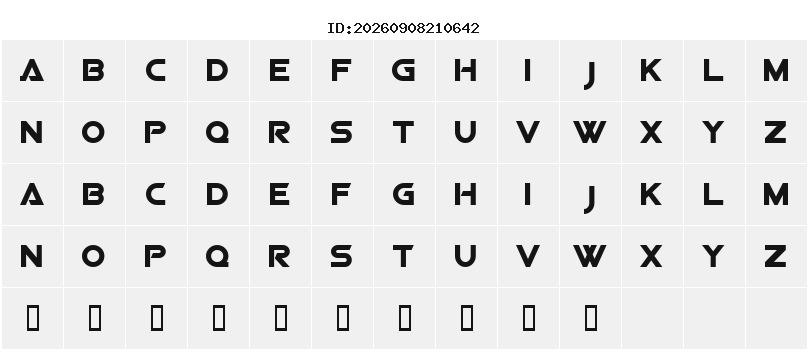
Viper Squadron Solid Preview
• Font Name: Viper Squadron Solid
• Full Font Name: Viper Squadron Solid
About Viper Squadron Solid.ttf
Viper Squadron Solid.ttf is a modern, elegant sans-serif font designed for ultimate readability and visual harmony. Perfect for branding, headlines, web design, and print materials.